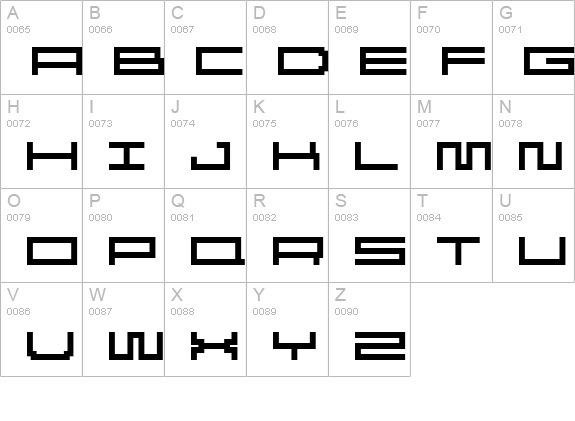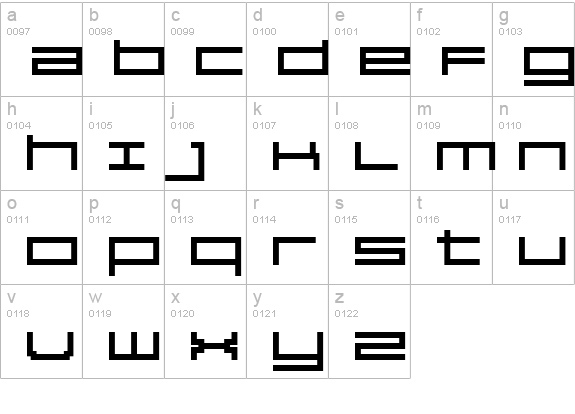
Reversion ExtraBold is an extra-heavy, attention-grabbing variant in the Reversion typeface family \xE2\x80\x94 well suited to high-impact headlines, posters, and bold branding.
Introducing Reversion ExtraBold, a powerful and striking font that will make your designs stand out from the crowd. With its bold and commanding presence, this typeface is perfect for creating eye-catching headlines, attention-grabbing posters, and impactful logos. Reversion ExtraBold's unique and modern design exudes confidence and strength, making it an ideal choice for projects that require a powerful visual statement. Its thick and robust letterforms are meticulously crafted to ensure legibility and readability, even at smaller sizes. But what sets Reversion ExtraBold apart is not just its exceptional design, but also its availability for free. That's right, you can freely download this remarkable font from FontsMarket.com. Whether you're a professional designer looking to add a touch of boldness to your creations or an aspiring creative seeking unique resources, Reversion ExtraBold is here to support your every design endeavor. This font is versatile and adaptable, easily complementing a wide range of design styles and themes. Its timeless aesthetic ensures that it will remain relevant and impactful for years to come. Whether you're working on a modern tech startup logo, a vintage-inspired poster, or a sleek magazine layout, Reversion ExtraBold will elevate your designs to new heights. So don't miss out on this incredible opportunity to enhance your design arsenal with Reversion ExtraBold. Download it for free at FontsMarket.com and unlock the full potential of your creative projects. Let Reversion ExtraBold be the bold statement that captivates your audience and sets your designs apart from the rest.